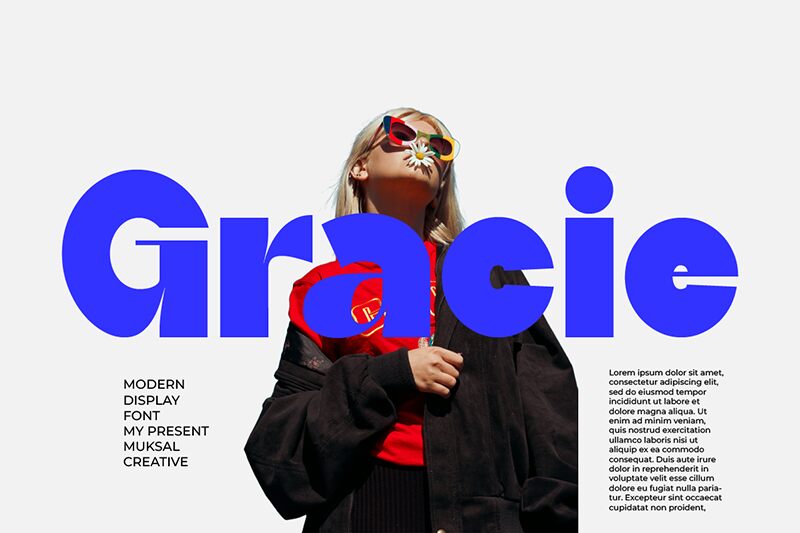
Gracie font by Muksal Creative is a sleek and expressive sans serif font that seamlessly combines a modern geometric style with a strong presence. It creates impactful, attention-grabbing visual messages.
The font design is contemporary, stylish, and easy on the eye, making it suitable for a wide range of different uses. Add it to your branding design projects, stationery, or advertising and marketing materials. Gracie is also a great choice for product packaging, both for physical items and digital products.